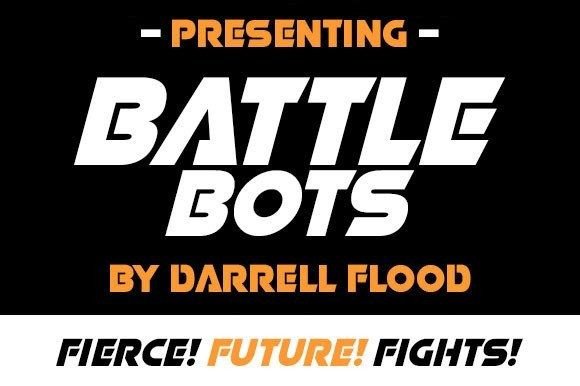
Unleash Your Creativity with Battle Bots Font: The Ultimate Futuristic Display Font
Are you a designer or crafter looking for a font that can add a touch of futurism and high-tech flair to your creative projects? Look no further than the Battle Bots font. This hard-hitting, futuristic display font is perfect for sci-fi adventures, tech-savvy designs, and any project that requires a sleek, modern style.
What Makes Battle Bots Font Stand Out?
Battle Bots font is designed to make a statement. Its slick, modern style is perfect for designers who want to add a touch of futurism to their work. The font’s bold, chunky letters are reminiscent of robotic machinery, making it an ideal choice for sci-fi themed projects, tech logos, and high-tech designs.
One of the key features that sets Battle Bots font apart is its versatility. Whether you’re designing a logo, a poster, or a website, this font can be used to create a visually stunning effect. Its clean lines and geometric shapes make it easy to read, even at small sizes, while its bold style ensures that it will grab attention.
Perfect for Sci-Fi Adventures and High-Tech Themes
If you’re working on a project that requires a sci-fi or high-tech theme, Battle Bots font is the perfect choice. Its futuristic style is reminiscent of classic sci-fi movies and TV shows, making it an ideal fit for projects that require a retro-futuristic feel.
From designing a logo for a tech startup to creating a poster for a sci-fi movie, Battle Bots font can help you achieve a professional, high-tech look. Its bold, chunky letters are perfect for creating eye-catching headlines, while its clean lines and geometric shapes ensure that your text is easy to read.
Why Choose Battle Bots Font?
So why choose Battle Bots font for your next project? Here are just a few reasons why this font stands out:
- Futuristic style: Battle Bots font has a sleek, modern style that’s perfect for sci-fi adventures and high-tech themes.
- Versatility: This font can be used for a wide range of projects, from logos and posters to websites and social media graphics.
- Easy to read: Despite its bold style, Battle Bots font is easy to read, even at small sizes.
- Unique look: This font has a unique, eye-catching style that’s sure to make your project stand out.
How to Use Battle Bots Font in Your Designs
Using Battle Bots font in your designs is easy. Here are a few tips to get you started:
- Pair it with a sans-serif font: For a clean, modern look, pair Battle Bots font with a sans-serif font like Arial or Helvetica.
- Use it for headlines: Battle Bots font is perfect for creating eye-catching headlines that grab attention.
- Experiment with colors: Try using Battle Bots font in different colors to create a unique, eye-catching effect.
If you’re looking for a font that can add a touch of futurism and high-tech flair to your creative projects, look no further than Battle Bots font. Its sleek, modern style and bold, chunky letters make it perfect for sci-fi adventures, tech logos, and high-tech designs.